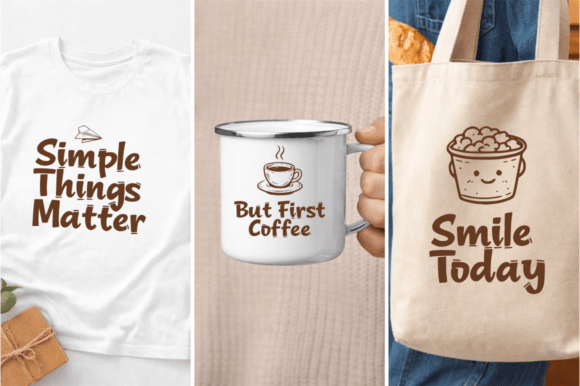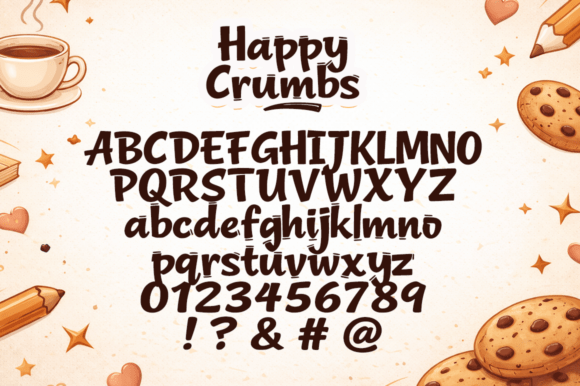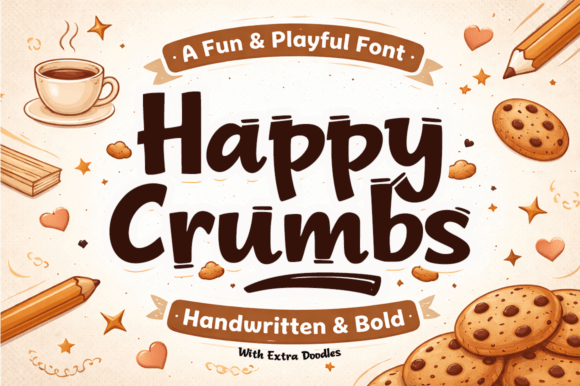
Bring a sweet, irresistible energy to your designs with the Happy Crumbs font, a β€œfun and playful font” that feels as warm and comforting as a freshly baked cookie.
This Happy Crumbs typeface is a bold, chunky handwritten style characterized by its thick, rounded strokes and charming irregularities that evoke a sense of pure joy Perfect for bakery branding, children’s books, food packaging, and whimsical social media graphics, this font is designed to make every word feel like a treat.